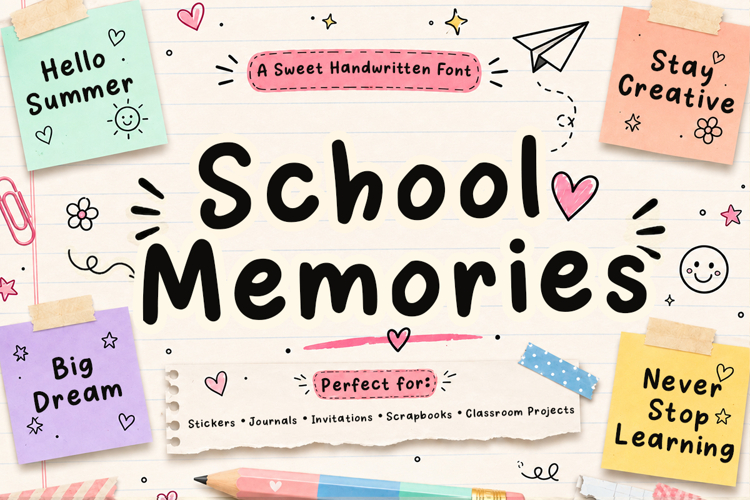
School Memories
School Memories is a cute and playful handwritten font featuring smooth, rounded letterforms with a warm, friendly personality. Designed to capture the joyful spirit of childhood, this font is perfect for school-themed projects, classroom decorations, journals, planners, greeting cards, stickers, scrapbooks, educational materials, children's books, invitations, social media graphics, and DIY crafts. Its clean, highly readable style brings a fun, cheerful, and handmade touch to every design while remaining versatile for both print and digital projects. Whether you're creating back-to-school designs or adorable kids' merchandise, School Memories adds a charming and heartwarming feel that makes every project stand out.